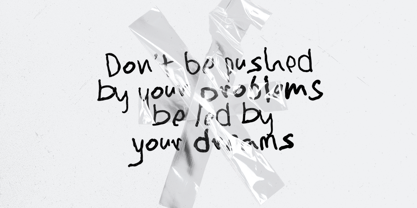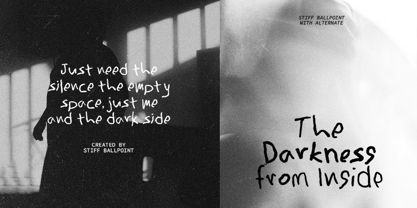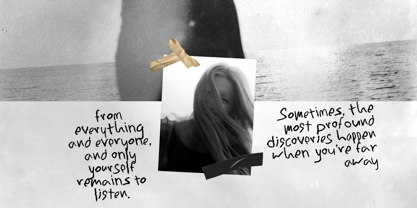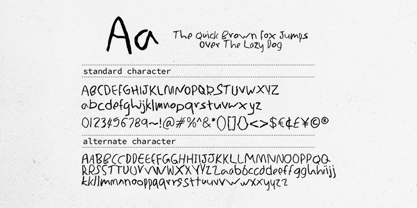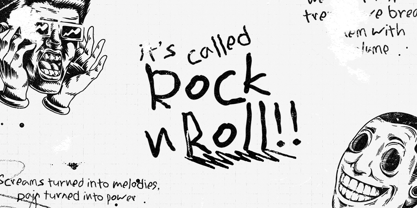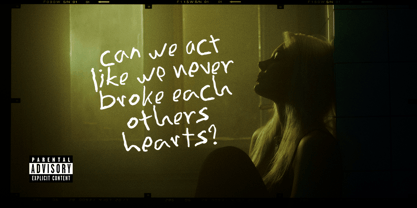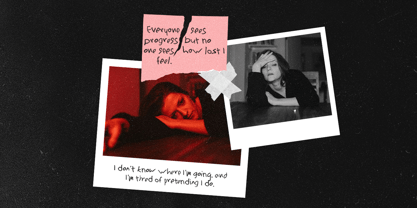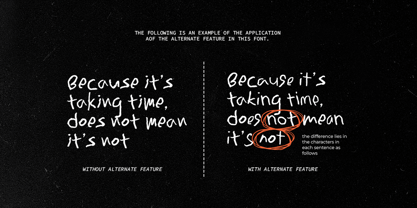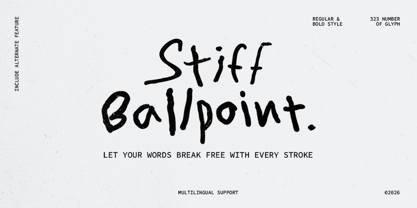
Stiff Ballpoint
by Bale Type
The Stiff Ballpoint Font Family was designed by Ridho Azumarta and published by Bale Type. Stiff Ballpoint contains 2 styles and family package options. More about this family
Stiff Ballpoint is a messy and rough handwritten font family that comes with regular and bold style. With contextual alternates in opentype feature, the alphabet from this font will automatically change to make it looks more naturally handwritten. You can use this font for any purposes such as poster, quotes, and branding. Stiff Ballpoint also comes with multi language support. Let this font make your messy project even messier!